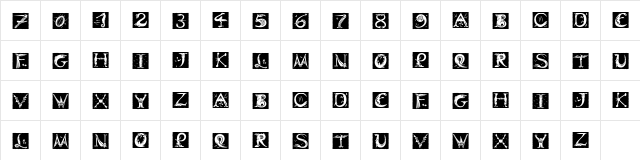
Dinitials Negative ITC TT Regular
Design Context for Dinitials Negative ITC TT Typeface
Dinitials Negative ITC TT is a composed and adaptable typeface that performs quietly and consistently across a wide range of design contexts.